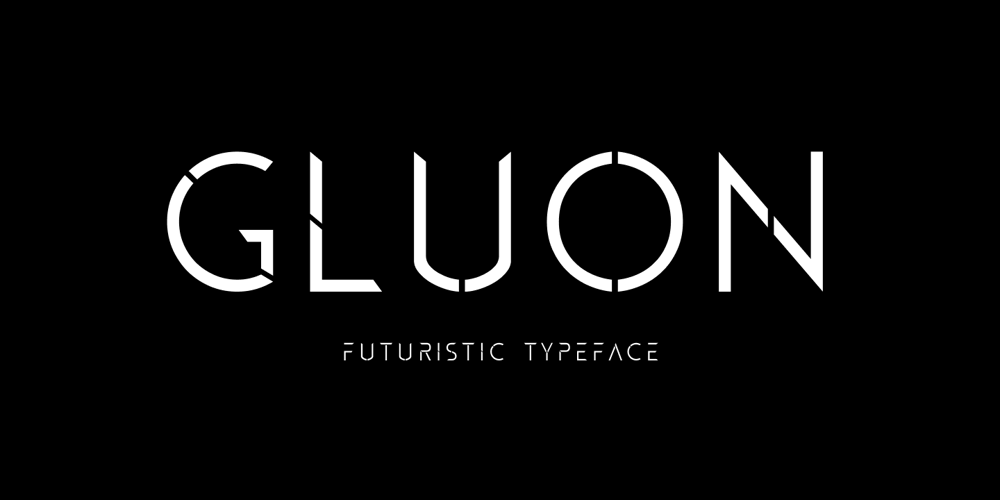
Gluon
Gluon font
Gluon Font Family was designed by Eugene Bunin and published by Harvester Type. Gluon contains 3 styles and family package options. Gluon is a font that is perfect for headlines, logos, posters, and much more. This font combines the minimalism, the futurism and aesthetics. We wanted you to feel the cosmos and its beauty when you look at the font. Three weights will help you choose the perfect combination with your design.Initially, the font was developed for the company’s logo, but later the idea was slightly revised. The idea of the font is to convey the spirit of the future, but leave the beauty that we are used to seeing.The design was developed by Eugene Bunin and Beginskaya Christine.